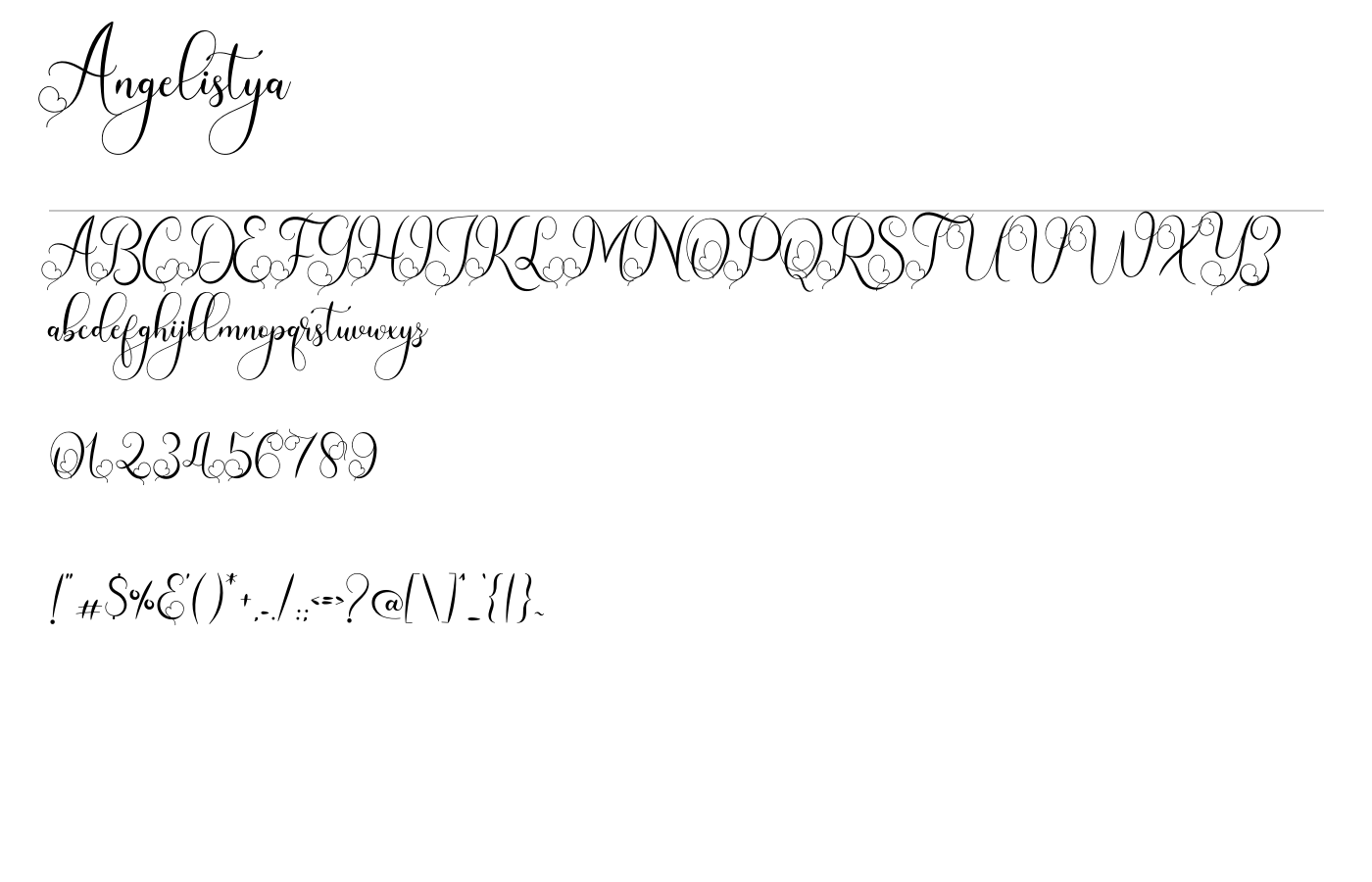
Angelistya is an elegant handwritten script font with delicate, flowing strokes adorned by charming heart-shaped flourishes on uppercase letters and numbers. Its fine, graceful lines create a romantic and whimsical feel, making it perfect for wedding invitations, greeting cards, fashion branding, and any design that seeks a feminine and sophisticated touch. This font works beautifully as a decorative headline or logo where an ornamental and light aesthetic is desired.
Angelistya Font
| Designer | Ainur Rofiq |